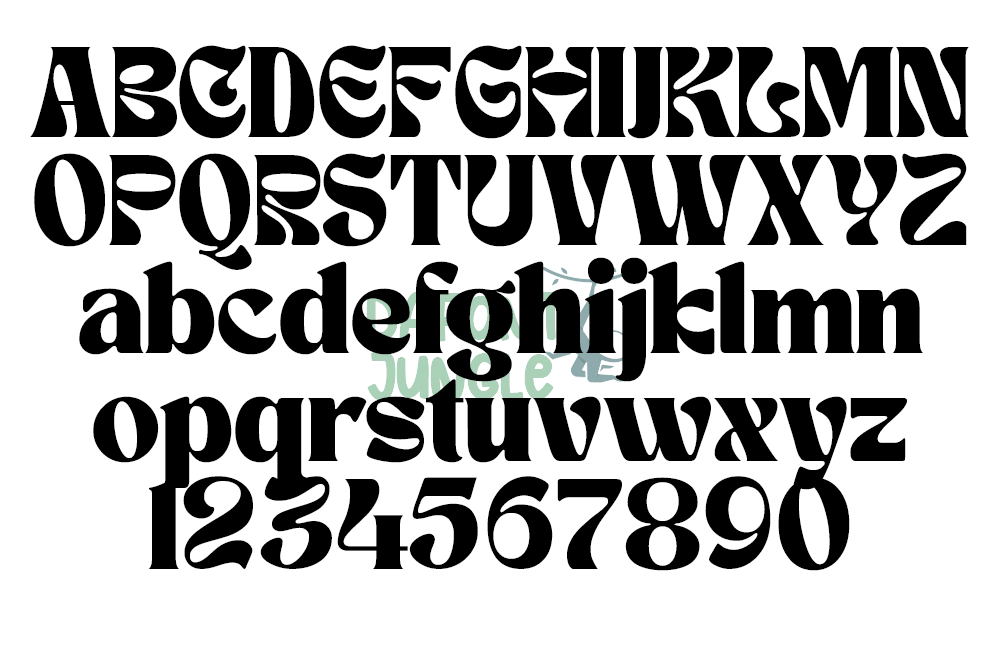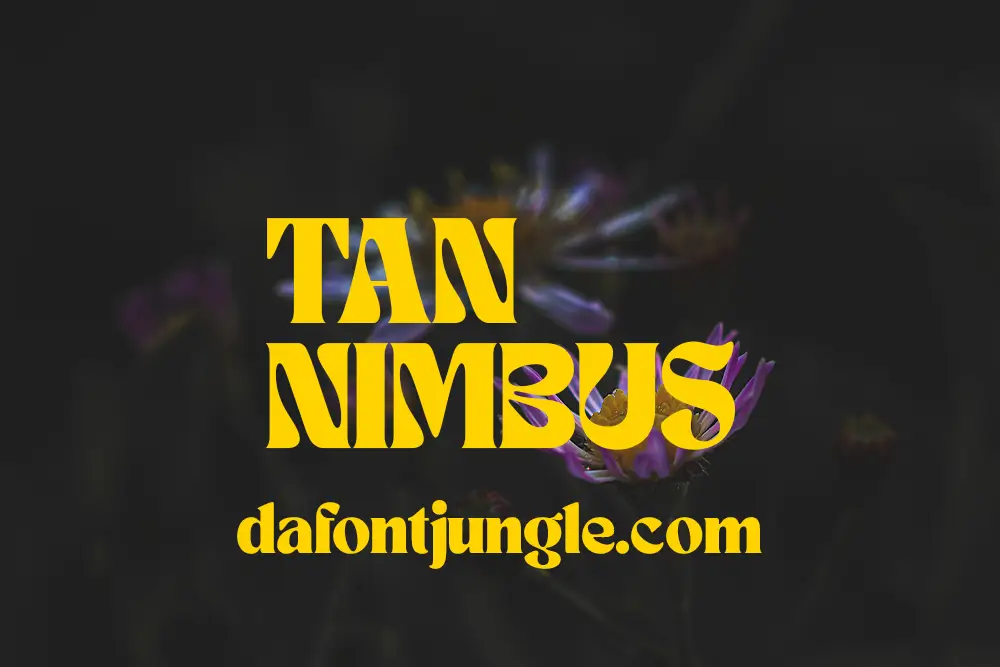
TAN – NIMBUS – Bold Psychedelic Display Font
TAN – NIMBUS is a bold psychedelic display font that brings a retro and playful vibe to any design. With its funky curves and nostalgic feel, this typeface instantly adds character and fun. It’s perfect for posters, headlines, branding, album covers, and any creative project that needs a groovy twist.
Use it when you want your message to stand out and spark joy.